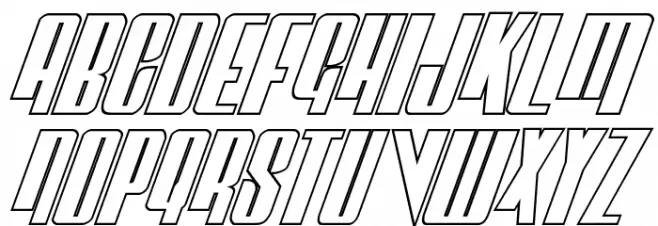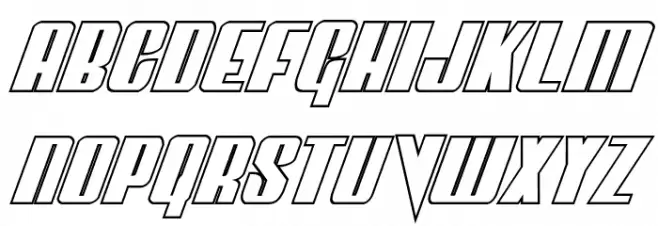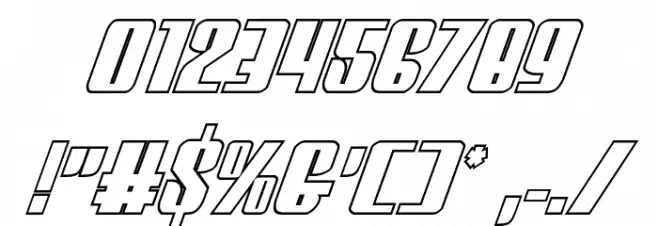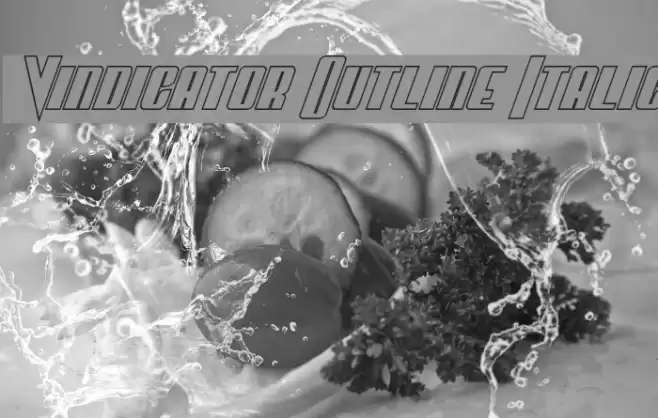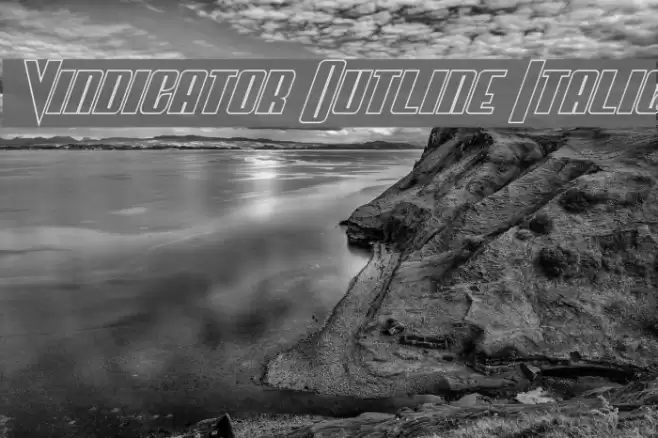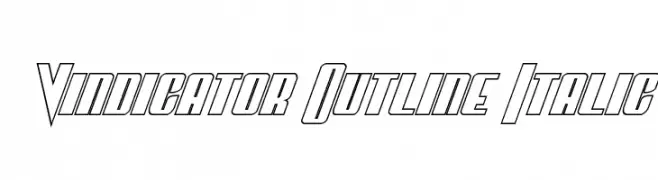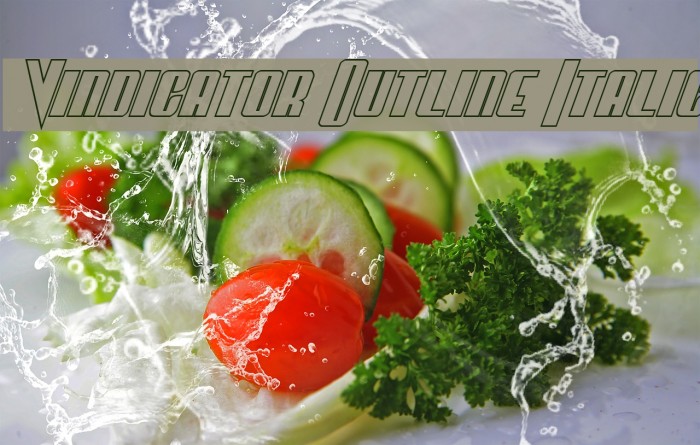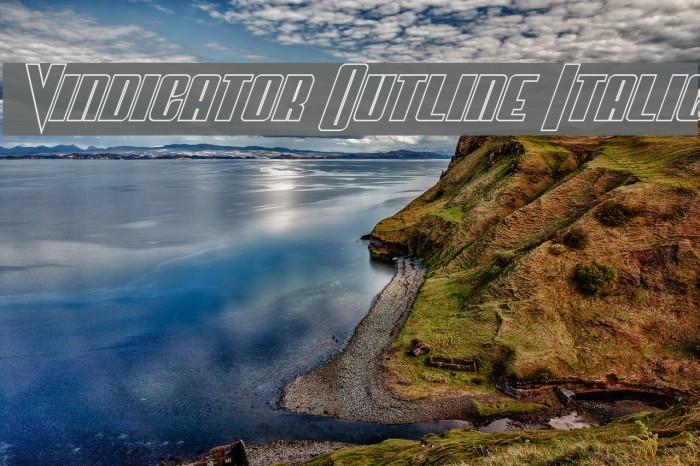
Vindicator Outline Italic
This font features a bold, italicized outline style that exudes a sense of modernity and dynamism. The characters are sharply angled, giving them a futuristic and edgy appearance. Each letter is outlined with a consistent stroke width, creating a striking visual impact. The uppercase and lowercase letters maintain a uniform height, while the numerals and special characters are designed to match the overall aesthetic. The font's angular design and italic slant suggest movement and speed, making it ideal for projects that require a sense of urgency or forward-thinking design.
A bold, italicized outline font with a modern, angular design.
- Proposed Projects: Ideal for sports branding, futuristic designs, video game titles, and dynamic posters.